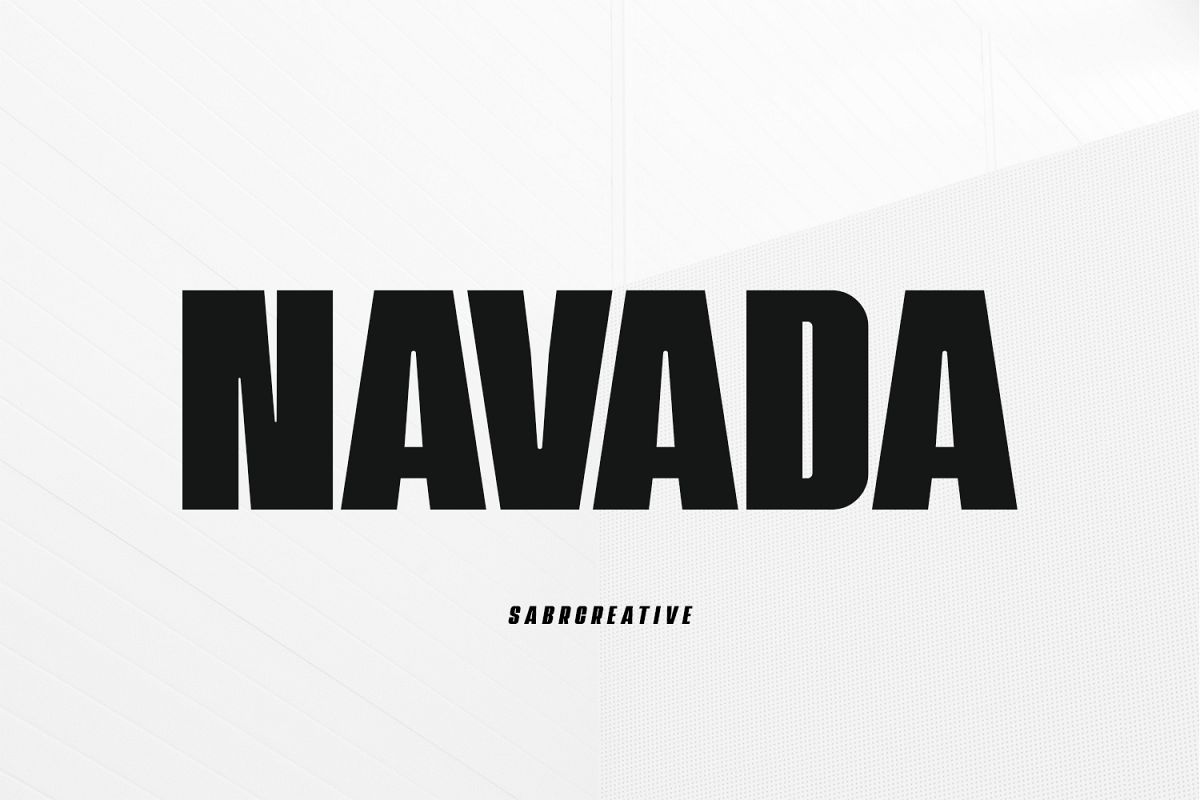
Navada
Navada Italic
Navada Outline
Navada Outline Italic
Navada typeface is our newest collection of fonts, we made
it with 6 styles, it is very suitable to meet your design needs.
Suitable for any design needs: branding, logos, quotes,
product packaging, merchandise, blog design, modern advertising design, invitation,
Art Quote, Home decor, Book / Cover Title, Invitation, special events,
birthday, custom mug, pillow, any brush lettering needs and more.